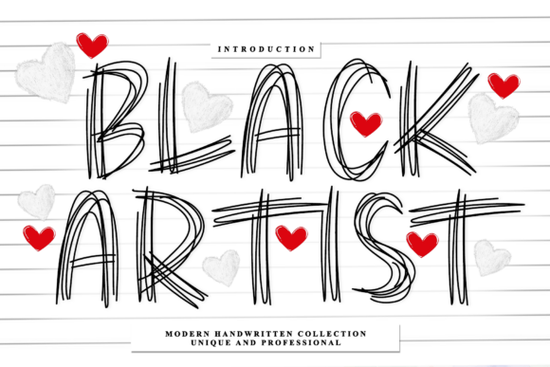
If you're looking for a script font that feels hand-drawn but still polished enough for professional branding especially for artisanal food labels, boutique packaging, or lifestyle editorial work you’ll want to take a closer look at Black Artist Font. It’s not just another decorative script. Its looping ascenders and gentle rhythm give it a warm, organic quality that stands out without feeling overworked. Unlike fonts that lean too far into calligraphy or mimic brush strokes too literally, Black Artist strikes a quiet balance: refined but approachable, intentional but relaxed.
What makes Black Artist Font different from other script fonts?
Most script fonts fall into one of two camps: highly formal (think wedding invitations) or playfully casual (great for kids’ products or social media graphics). Black Artist Font lives in the thoughtful middle ground. Its ascenders sweep upward with subtle variation not rigidly uniform, not wildly inconsistent which gives each word a slight sense of movement and personality. That’s why it works so well for small-batch coffee roasters, handmade soap brands, or indie magazine covers: it signals care and craft without shouting about it.
You’ll notice it doesn’t rely on heavy swashes or excessive ligatures to feel “artistic.” Instead, its warmth comes from spacing, weight distribution, and the softness of its curves. It pairs cleanly with simple sans-serifs like Montserrat or Lato for body text no competing drama, just clear visual hierarchy.
Where does it fit in your design toolkit?
This isn’t a one-size-fits-all font but that’s its strength. Think of it as your go-to for moments where tone matters as much as legibility:
- Artisanal food branding labels for small-batch jams, honey, or spice blends
- Boutique product packaging candle boxes, ceramic tags, linen pouches
- Lifestyle marketing Instagram story headers, workshop flyers, newsletter banners
- Creative editorial titles zine covers, blog post headers, seasonal lookbooks
It’s not ideal for long paragraphs or tiny print like most display fonts, it shines at medium to large sizes (24pt and up). If you’re designing for print-on-demand, test how it renders on mockups first: its organic flow translates beautifully to matte paper or uncoated cardstock.
How does it compare to other popular Creative Fabrica scripts?
It shares some DNA with Dancing Christmas Font in terms of rhythm, but swaps festive energy for calm sophistication. Where Tiny Rex Font leans playful and compact, Black Artist breathes more openly on the page. And unlike Preppy Hunky Font, which has a bolder, more structured bounce, this one keeps things soft and grounded. Even Super Flower Font with its floral motifs feels busier by comparison. Each has its place; Black Artist fills the niche for understated elegance.
If you’re exploring options, it’s worth checking out Black Artist Font directly on Creative Fabrica to preview the full character set, including alternates and multilingual support (it includes Latin Extended-A, so covers most Western European languages).
Before adding it to your project:
- Test spacing: Kerning can vary between apps adjust letter spacing manually if headlines feel too tight or loose.
- Pair mindfully: Try it with neutral typefaces avoid other scripts or overly decorative fonts nearby. A clean sans-serif or gentle serif works best.
One last note: if you’re building a brand identity system, consider using Black Artist Font only for primary headlines or logo lockups not as your only font. Let it anchor the mood, then let simpler fonts carry the rest of the message.